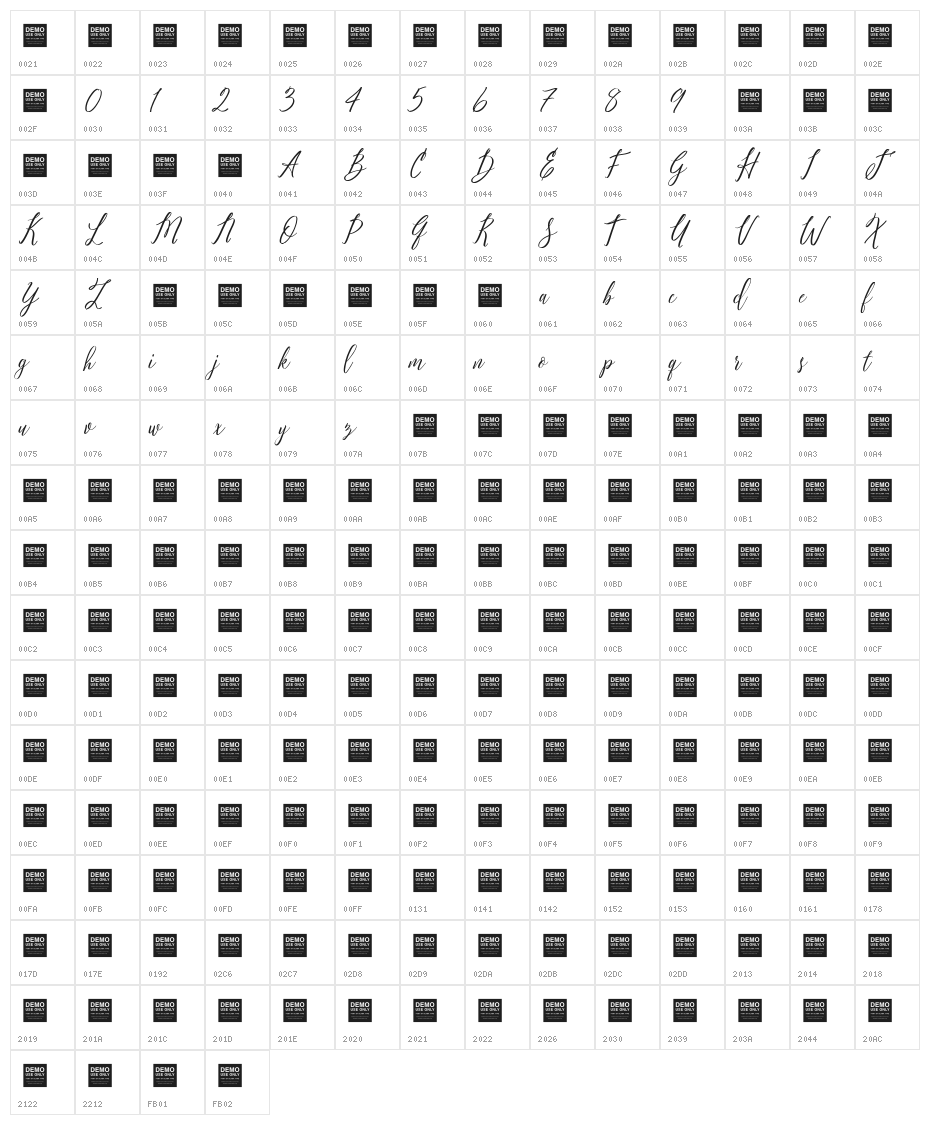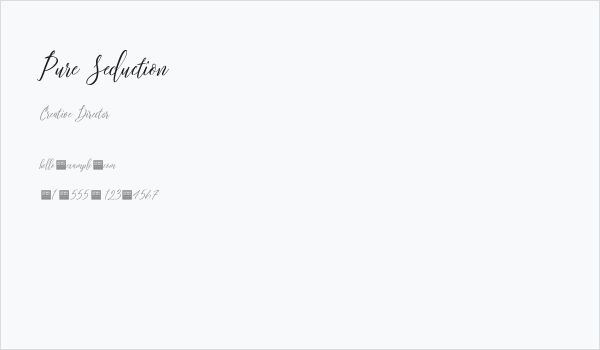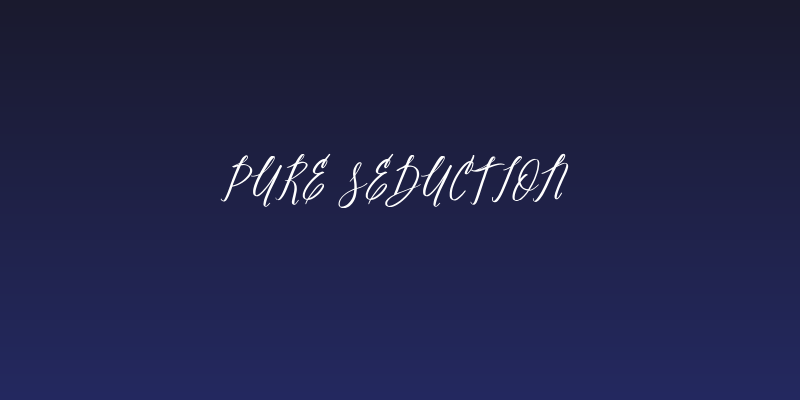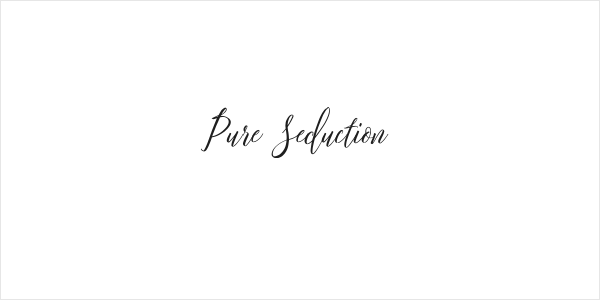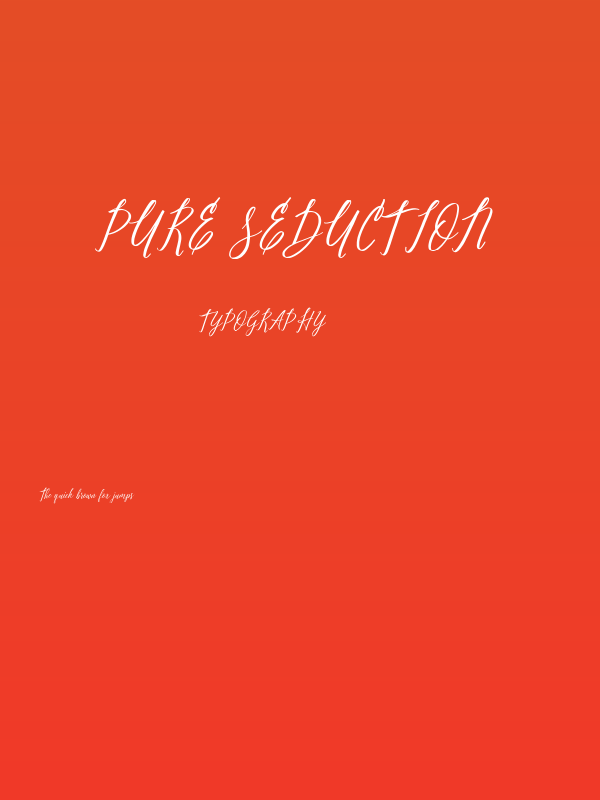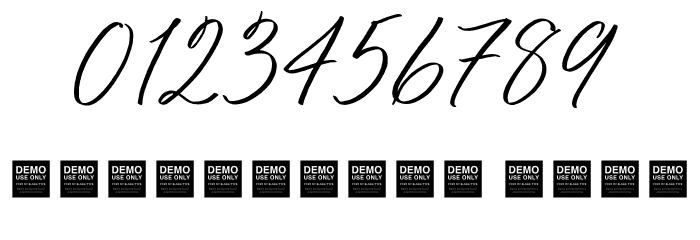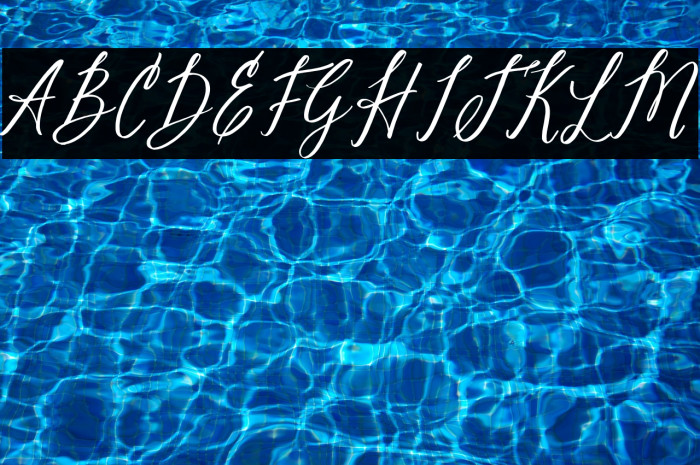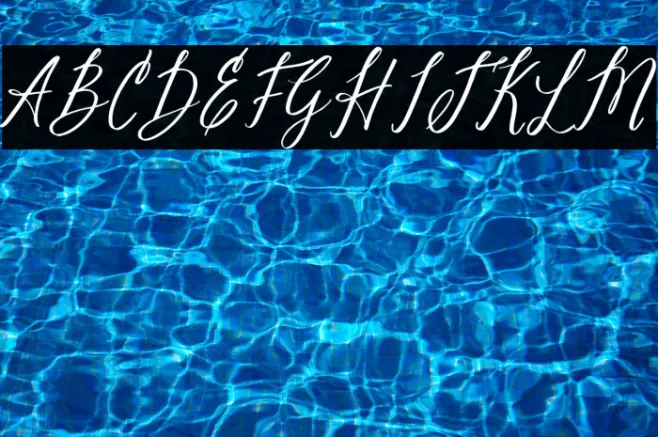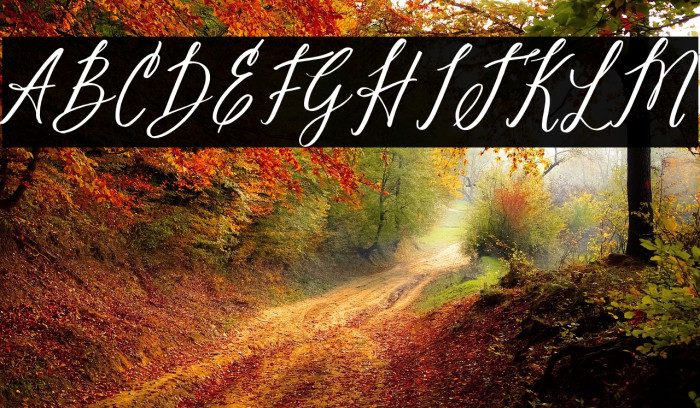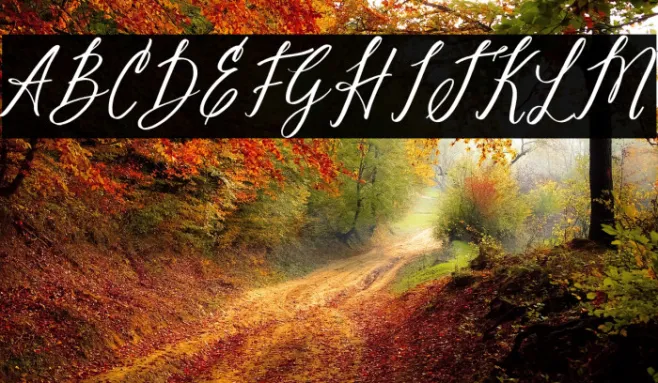
Pure Seduction Font
Pure Seduction Description
This elegant script font features a flowing, cursive style with smooth, connected strokes that evoke a sense of sophistication and grace. The uppercase letters are tall and slightly slanted, while the lowercase letters maintain a consistent flow, creating a harmonious balance between the two. The numerals are designed with the same fluidity, ensuring a cohesive look throughout. The font's overall appearance is both stylish and refined, making it suitable for a variety of creative applications. Its delicate curves and loops add a touch of romance and charm, perfect for projects that require a personal and artistic touch.